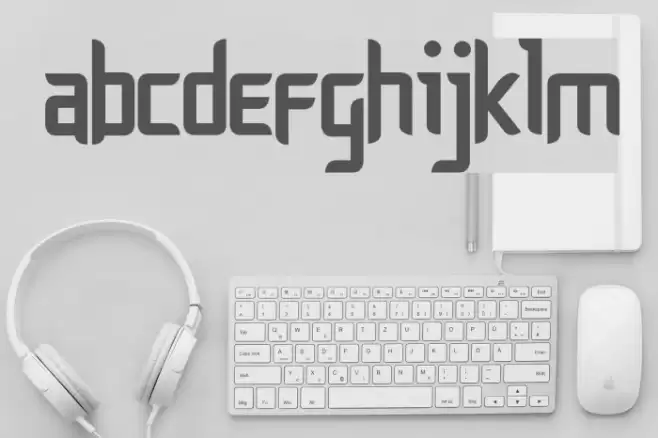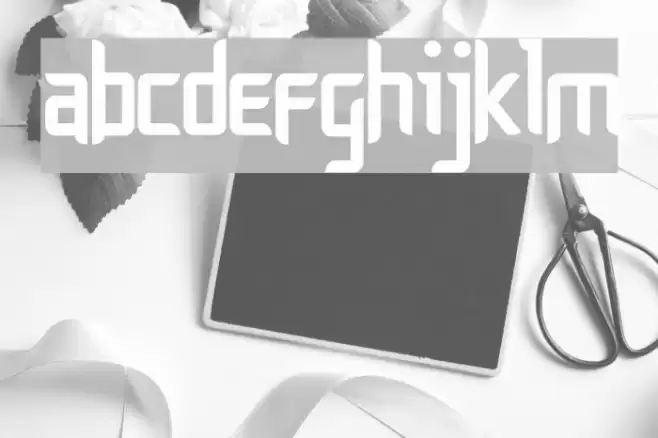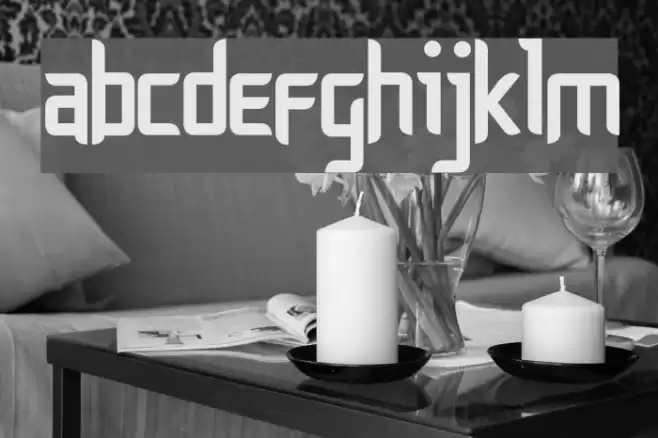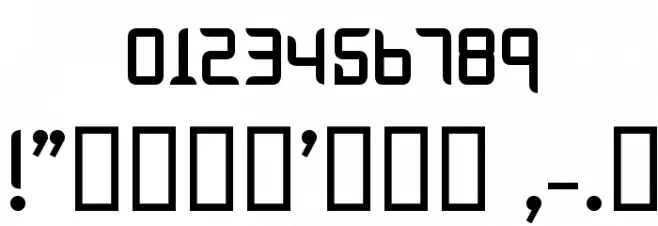
Sliver Font
Sliver Description
This font features a modern, geometric design with a distinct angular style. The characters are uniform in height, with a consistent stroke width that gives it a clean and structured appearance. The uppercase and lowercase letters share similar design elements, enhancing the cohesive look. The numbers and special characters maintain the same geometric style, ensuring visual harmony across all glyphs. The font's unique angular cuts and sharp edges make it stand out, while its uniformity ensures readability. It's suitable for digital displays and modern design projects, offering a futuristic and sleek aesthetic.
A modern, geometric font with angular cuts and uniform stroke width from Modern fonts.
- Proposed Projects: Ideal for digital interfaces, tech branding, modern posters, and futuristic design themes.
- Use Case: Headlines, Logos, Digital displays